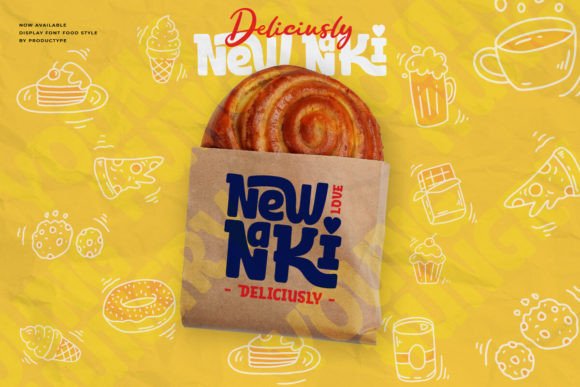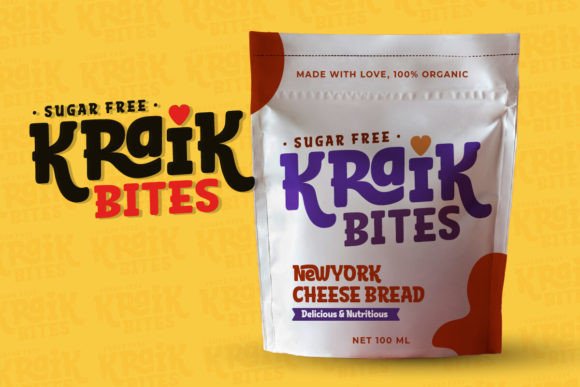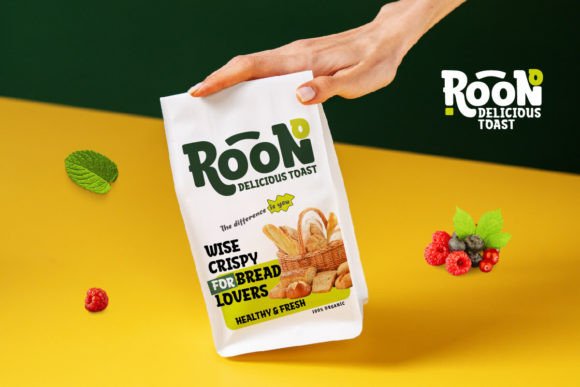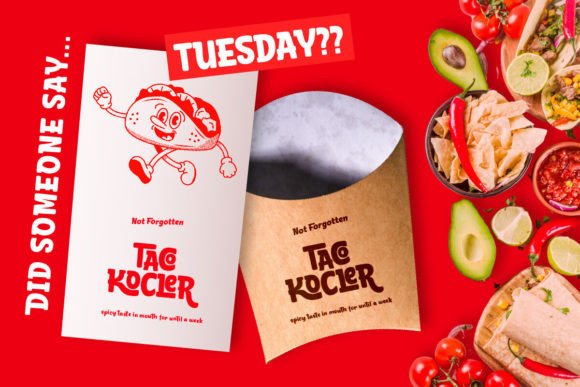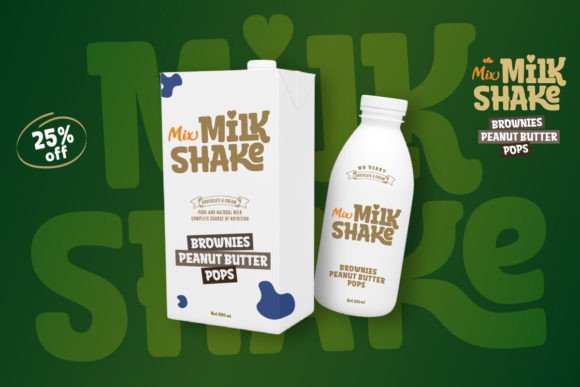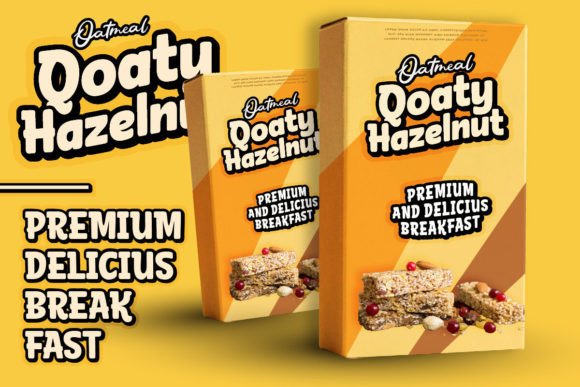
Introducing Food Buka: The Ultimate Display Font for Food and Beverage Branding
Are you a designer or craft looking for the perfect font to elevate your food and beverage branding? Look no further than Food Buka, a bold and characterful display font designed specifically for the culinary industry. With its strong and clear shape, Food Buka exudes a delicious and attractive impression, making it the ideal choice for restaurant logos, food product packaging, menus, advertisements, and various other promotional materials.
The Perfect Blend of Style and Functionality
Food Buka’s design is centered around creating a visually appealing and appetizing impression. Its bold lines and tempting shapes make it able to attract attention and arouse appetite, perfect for enticing customers to try your culinary creations. Whether you’re creating a visual identity for a new cafe, designing labels for a beverage product, or creating a compelling advertising campaign, Food Buka provides the professional, evocative touch you need.
Key Features of Food Buka
- Bold and Characterful Design: Food Buka’s unique design makes it stand out from other fonts, ensuring your brand gets noticed.
- Strong and Clear Shape: The font’s clear shape ensures that your message is conveyed effectively, even at a distance.
- Perfect for Food and Beverage Branding: Food Buka is designed specifically for the culinary industry, making it the perfect choice for restaurant logos, food product packaging, and more.
- Versatile: Use Food Buka for menus, advertisements, and various other promotional materials to create a cohesive brand image.
Why Choose Food Buka?
With so many fonts available, why choose Food Buka? The answer lies in its ability to bring strong visual power and an unforgettable impression to each of your creations. By using Food Buka, you can:
- Elevate Your Brand: Create a professional and memorable brand image that sets you apart from the competition.
- Increase Brand Recognition: Food Buka’s unique design ensures that your brand gets noticed, increasing recognition and loyalty.
- Enhance Your Marketing Efforts: Use Food Buka to create compelling advertisements and promotional materials that drive results.
How to Use Food Buka
- Restaurant Logos: Use Food Buka to create a bold and eye-catching logo for your restaurant.
- Food Product Packaging: Design labels and packaging for your food products using Food Buka.
- Menus: Create menus that showcase your culinary creations in style with Food Buka.
- Advertisements: Use Food Buka to create compelling advertisements that drive results.
In conclusion, Food Buka is the ultimate display font for food and beverage branding. Its bold and characterful design, strong and clear shape, and versatility make it the perfect choice for designers and craft looking to elevate their culinary branding. By using Food Buka, you can create a professional and memorable brand image that sets you apart from the competition. So why wait? Download Food Buka today and let it be the secret ingredient in your design recipe.